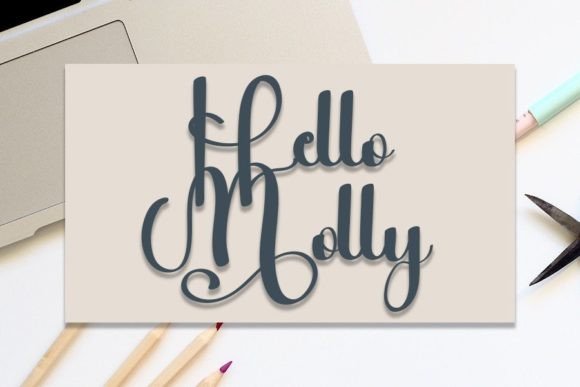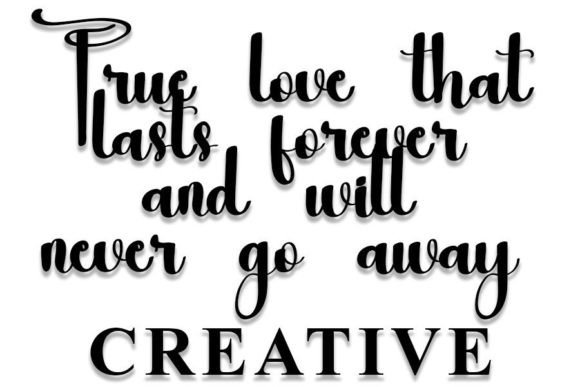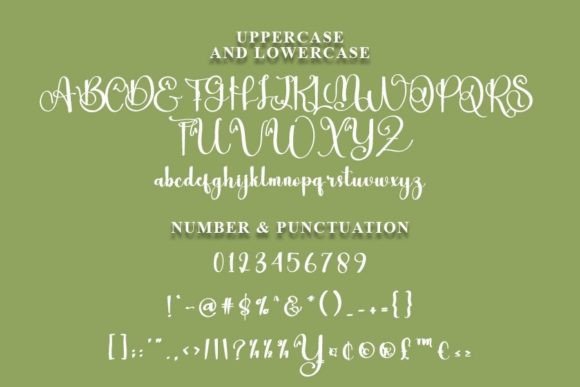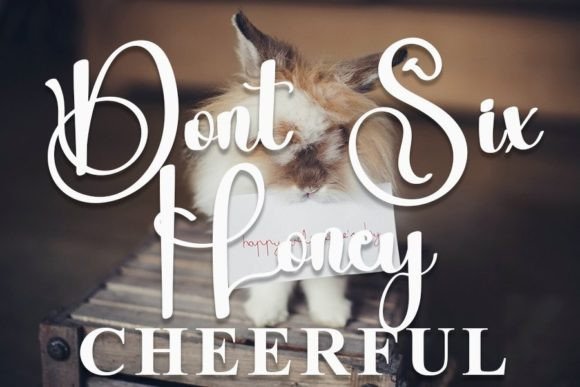
Rabbit Font
About Rabbit Font
“Rabbit” is not just a font; it’s a beautiful and light handwritten typeface designed to bring a unique feel and stunning impact to your design projects. This font goes beyond the ordinary, adding a touch of luxury and sophistication to any creative endeavor you wish to undertake.
The beauty of Rabbit lies in its delicate and handwritten style. The light strokes and unique characters give the font a distinctive feel, making it a perfect choice for projects that require a refined and elegant touch.
In various design projects, Rabbit can add a luxurious spark that elevates the overall aesthetic. Whether you’re working on branding materials, invitations, posters, or any other creative work, the font’s stunning impact contributes to a visually appealing and memorable outcome.
The handwritten charm of Rabbit is versatile, making it suitable for a range of applications. Whether you’re creating a logo, designing social media graphics, or working on print materials, the font adapts to different contexts while maintaining its unique and luxurious character.
In branding, Rabbit becomes a key element in conveying a sense of sophistication and uniqueness. The font’s impact ensures that your brand stands out with an elegant and memorable visual identity.
Invitations and posters benefit from the beautiful and light aesthetics of Rabbit. The font adds a touch of class, turning ordinary designs into extraordinary pieces that capture the attention and admiration of the audience.
For any design project where a luxurious spark is desired, Rabbit is a font that delivers. Its impact goes beyond the ordinary, leaving a lasting impression and contributing to the overall success of your creative endeavors.
In conclusion, Rabbit is more than just a font; it’s a design asset that brings beauty, lightness, and a touch of luxury to your projects. Incorporate Rabbit into your designs, and witness how it adds a stunning impact, making your work stand out with a unique and sophisticated feel.